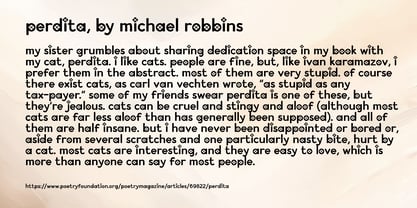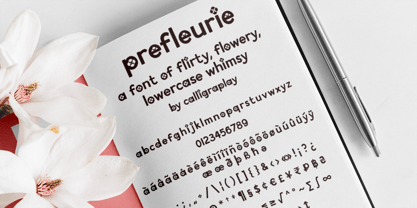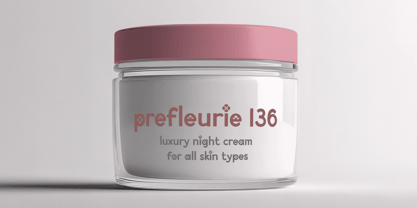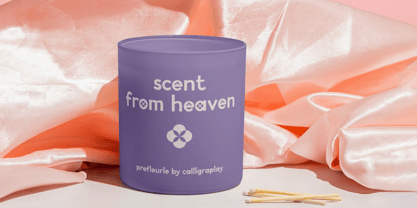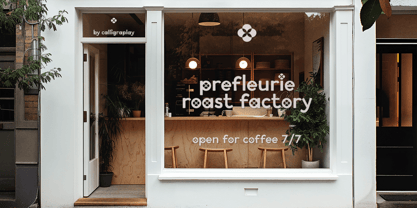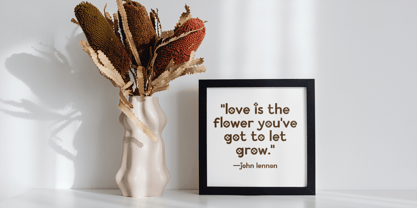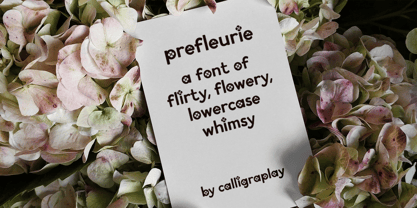
Prefleurie
by Calligraplay
The Prefleurie Font Family was designed by Sarah-Jane Loveday and published by Calligraplay. Prefleurie contains 1 styles. More about this family
A font of flirty, flowery, lowercase whimsy. Unusual display text with a floral motif repeated across letterform counters and dots, for use in invitations, signage, branding and more. Multilingual and alternate characters.